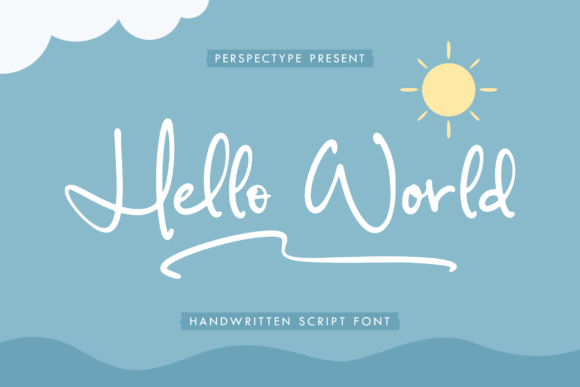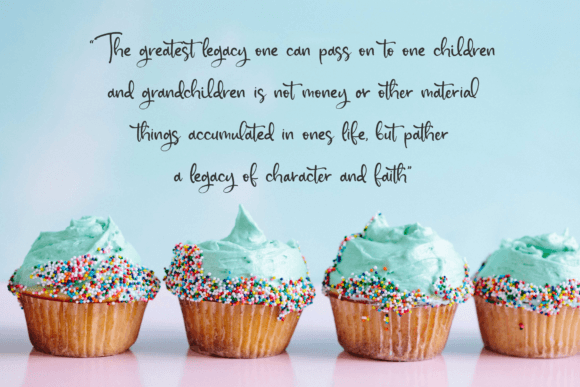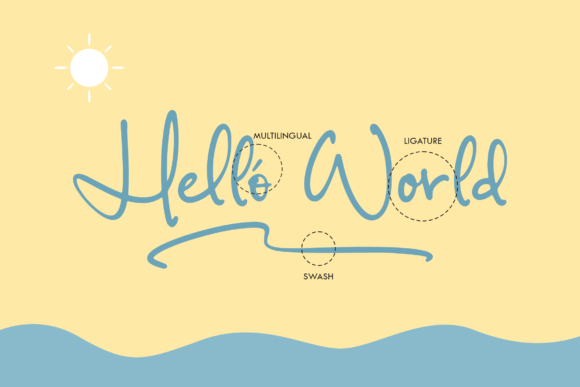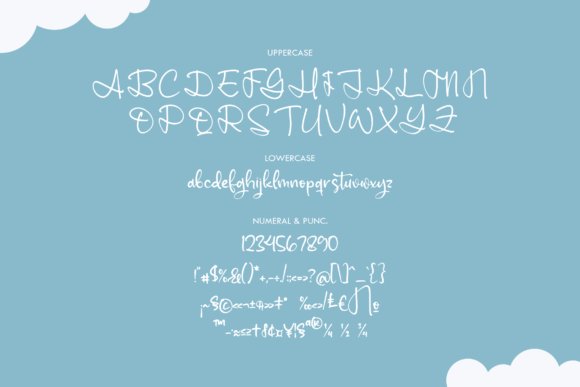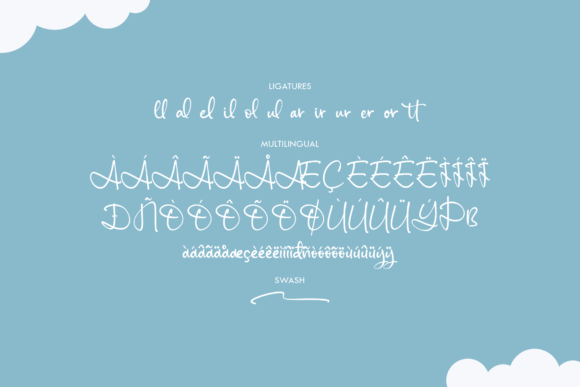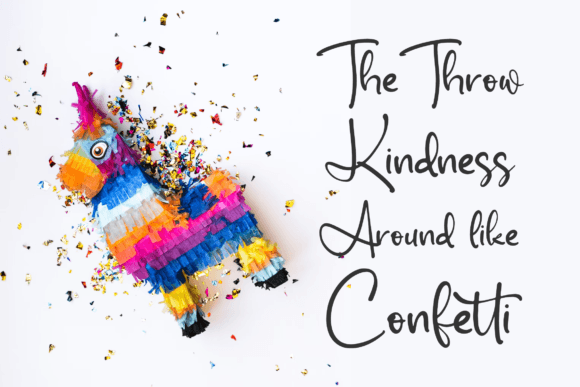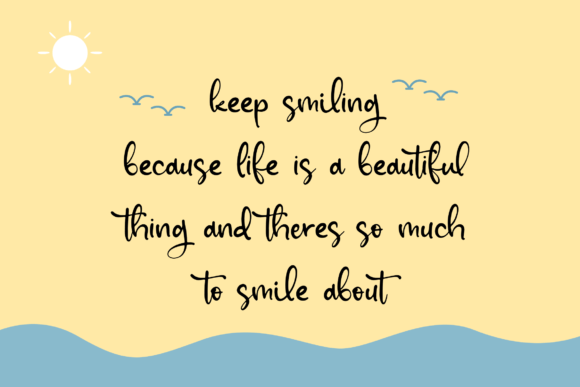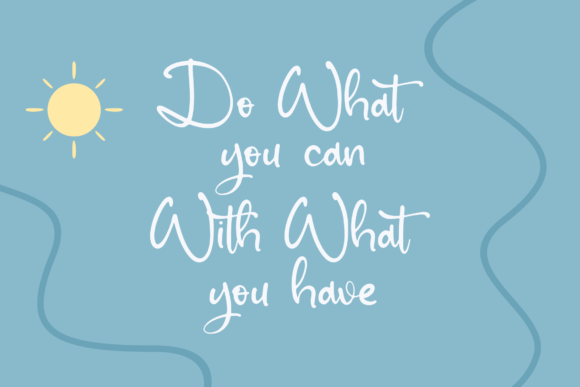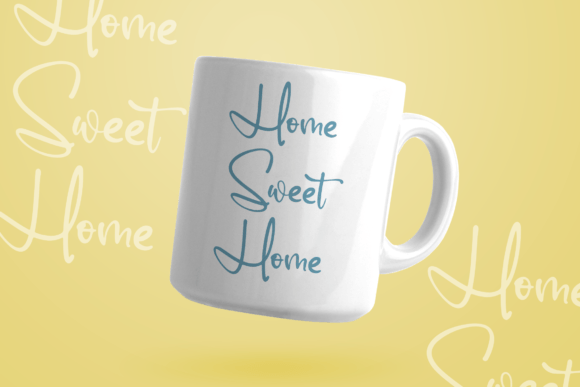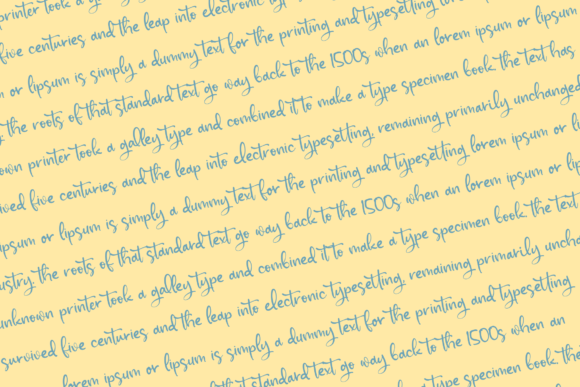
Hello World Font
About Hello World Font
**Hello World: A Fun and Friendly Handwritten Script Font**
Hello World is a delightful and versatile handwritten script font that radiates a sense of fun and friendliness. Whether you’re designing wedding invitations, stationery art, social media posts, or any other creative project, this font’s playful charm will win you over.
The primary appeal of Hello World lies in its fun and friendly style. The handwritten script characters are designed to be approachable and relatable, making them perfect for projects where you want to create a warm and inviting atmosphere. The font’s versatility allows it to adapt to various design contexts, from formal occasions like wedding invitations to more casual and expressive social media posts.
Hello World offers an incredibly versatile style that can adapt to different creative needs. Its flexibility makes it a valuable asset in your design toolkit. You can use it to add a touch of whimsy to wedding materials, create beautiful and personalized stationery art, or craft eye-catching social media content that engages your audience.
In summary, Hello World is more than just a font; it’s a source of fun and friendliness that enhances your design projects. Its playful script letters and versatile style make it an invaluable choice for infusing warmth and charm into your work. With Hello World, your creative projects will shine with a delightful and inviting appeal. Choose Hello World, and let your designs spread a friendly and cheerful message to the world.